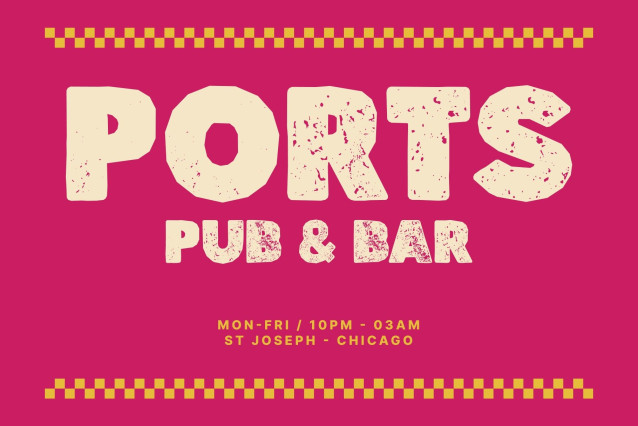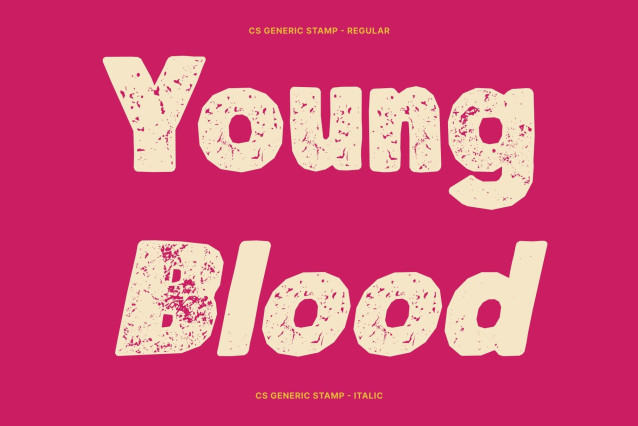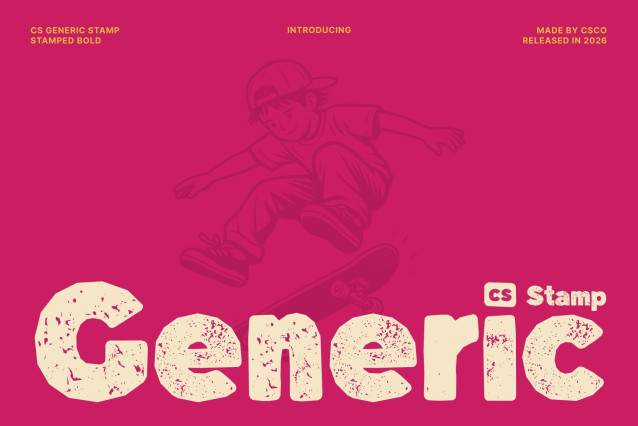
CS Generic Stamp Font
CS Generic Stamp – Bold Sans Serif: Modern Impact with Industrial Soul
Bold Contemporary Aesthetics with a Distressed Edge
This is a bold sans-serif display font designed to command attention through its powerful modern structure and striking geometric forms. This “Stamp” edition takes the clarity and confidence of the original design and infuses it with a weathered, artistic texture, resulting in a typeface that feels both cleanly engineered and ruggedly handcrafted.
Designed for High-Impact Headlines and Visual Dominance
Make your messages impossible to ignore with the substantial weight and strong proportions of this font. It is a natural fit for headlines, banners, and striking promotional materials where visual presence is paramount. The solid structure ensures maximum legibility, while the added stamp texture provides a layer of organic detail that draws the viewer in.
Tactile Depth with an Authentic Stamp Effect
The defining characteristic of this version is its meticulously crafted stamp effect, which introduces a rich, artistic texture to the bold letterforms. By simulating the natural imperfections of a physical ink press, the font gains a tactile, “ink-on-paper” quality.